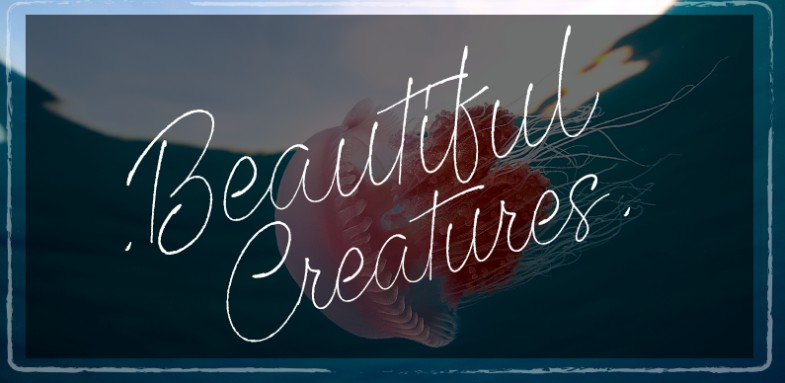
Beautiful Creatures Font is a script handwritten font that was designed by Octotype. This font has a very catchy look and elegant font, especially for your graphic design, print or logo design projects.